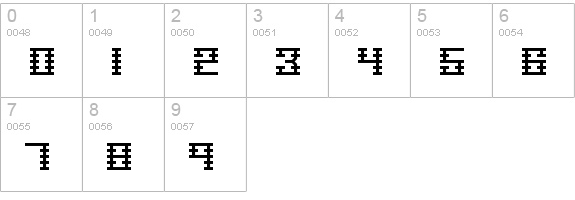
Scalelines BRK Font Details
Scalelines BRK font is a stunning display font that exudes a sense of modernity and sophistication. Its sleek and bold letterforms are designed to catch the eye and make a lasting impression. With its unique blend of geometric shapes and clean lines, Scalelines BRK font is perfect for a wide range of design projects, from logos and branding to headlines and posters. What sets Scalelines BRK font apart is not just its striking design, but also its accessibility. This font is available for free, making it a fantastic option for designers on a budget or anyone looking to add a touch of style to their creations without breaking the bank. You can easily download Scalelines BRK font at FontsMarket.com, where it is freely available among a vast collection of other fonts. Whether you're working on a personal project or a professional endeavor, Scalelines BRK font will elevate your designs to new heights. Its clean and modern aesthetic will captivate your audience and leave a lasting impression. So why wait? Download Scalelines BRK font today and bring your designs to life with its stylish and contemporary appeal.